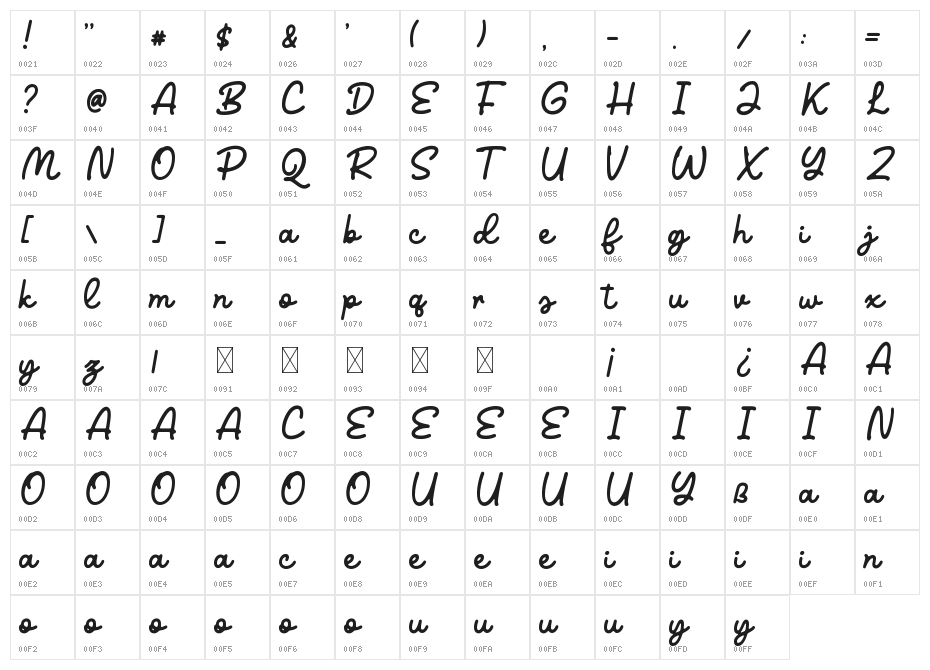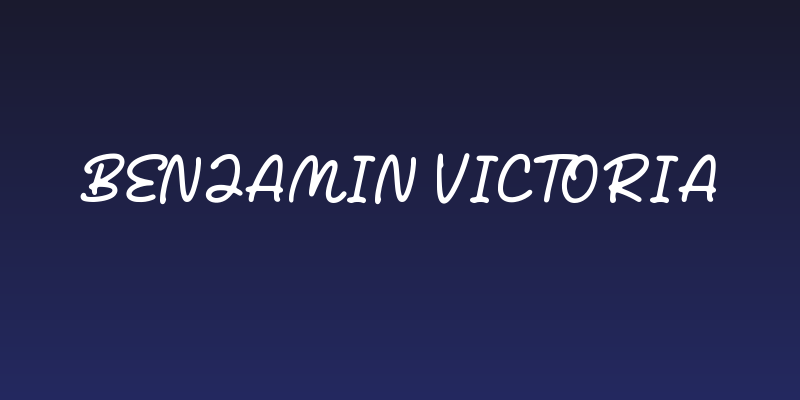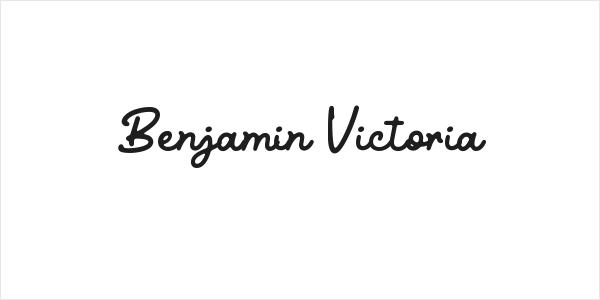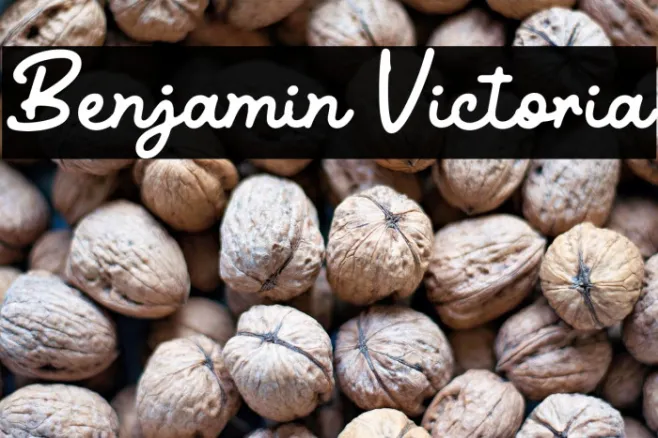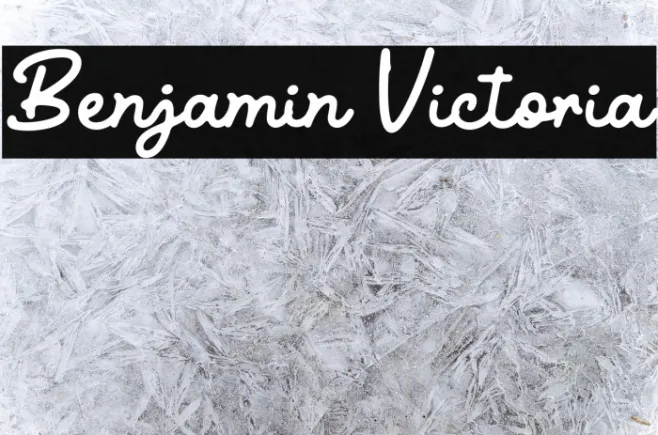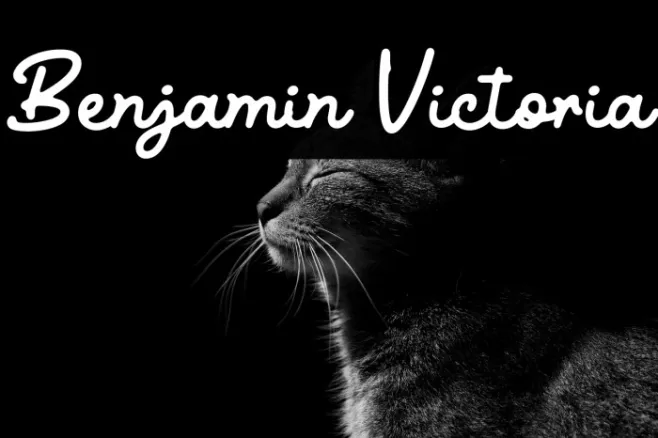
Benjamin Victoria Font
Benjamin Victoria Description
This font features a playful and dynamic script style, characterized by its fluid, connected strokes that mimic the natural flow of handwriting. The uppercase letters maintain a consistent height, while the lowercase letters exhibit a charming irregularity, adding to the font's casual and approachable feel. The characters are slightly slanted, enhancing the handwritten effect. The numbers and special characters are designed to match the overall aesthetic, ensuring a cohesive look across all text. This font's bold presence makes it stand out, yet its smooth curves keep it legible and inviting.
| Overall Style | Playful, Casual |
| Use Case | Logos, Invitations, Greeting Cards |
| Proposed Projects | Ideal for greeting cards, invitations, personal branding, and creative projects that require a personal touch. |